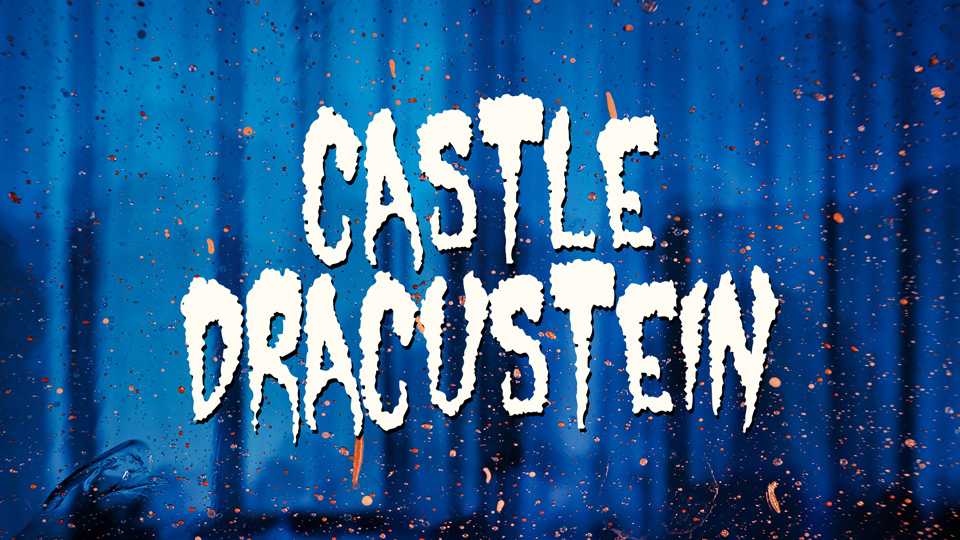
Download Castle Dracustein font, a creepy typeface that effortlessly combines the spookiness of Halloween with the charm of handmade, handcrafted design. Castle Dracustein font is designed for Halloween designs that require both a playful and sinister touch.